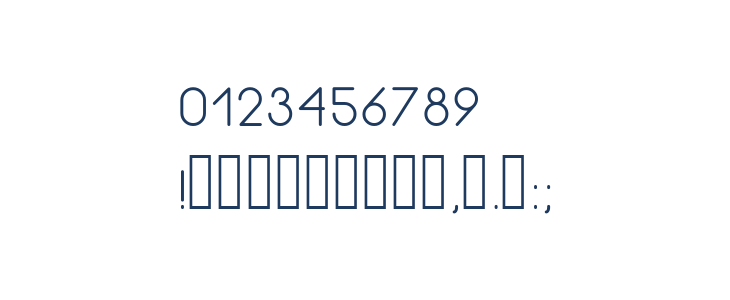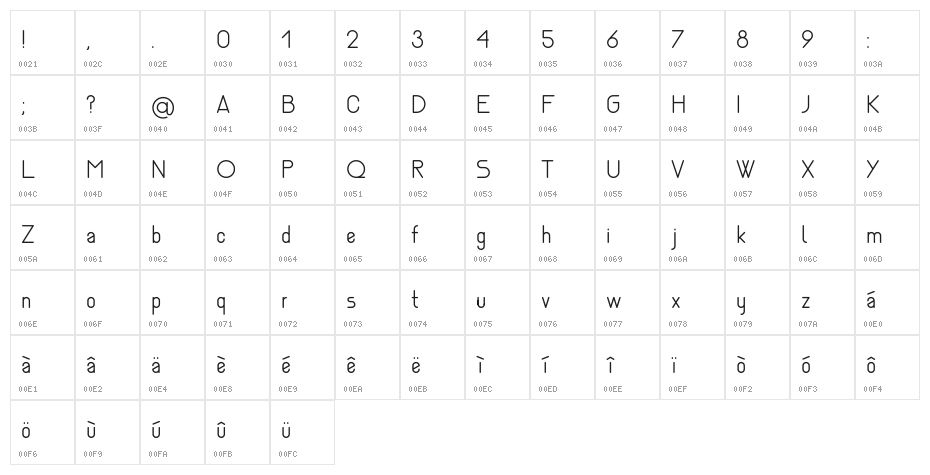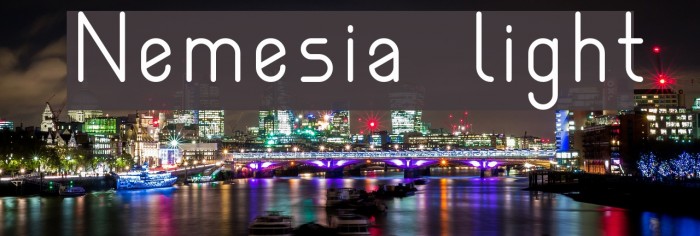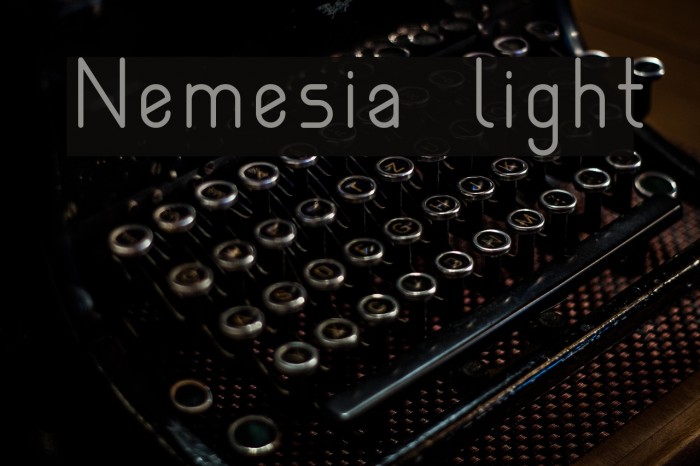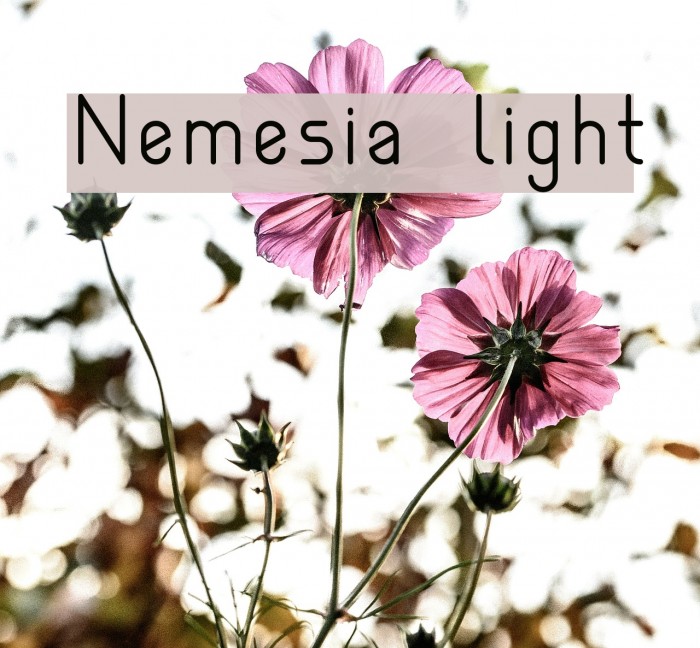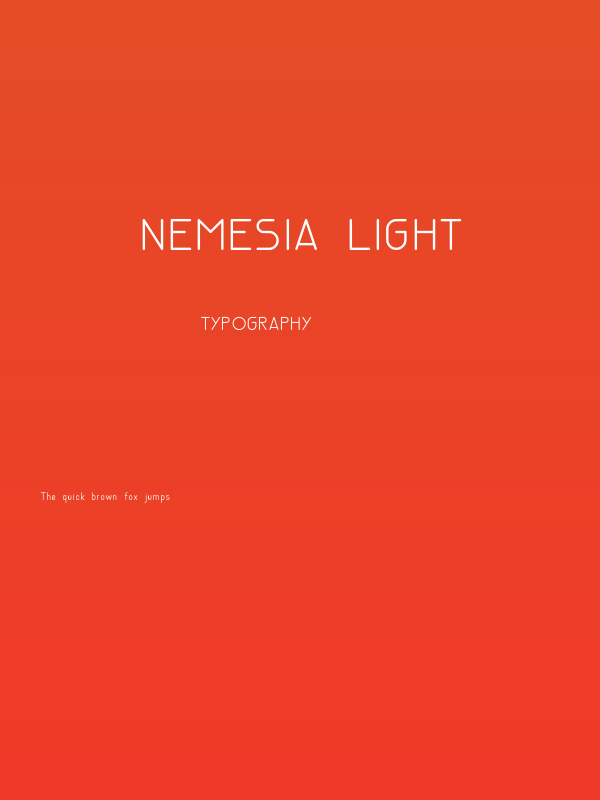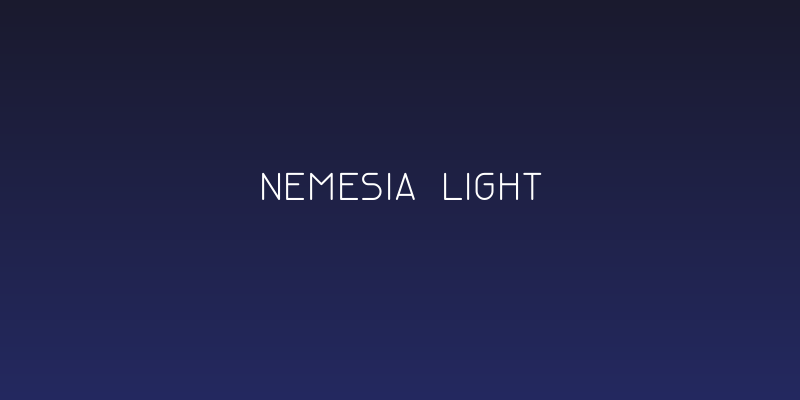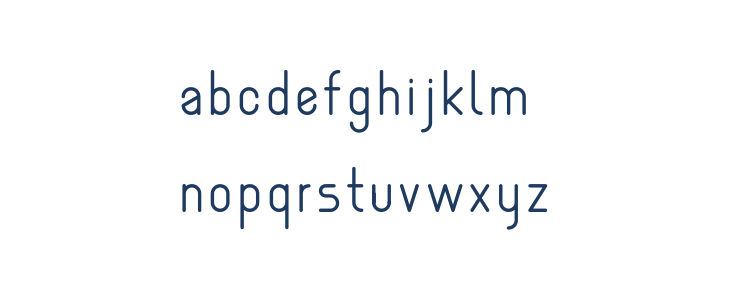
Nemesia light Font
Nemesia light Description
This font features a clean and modern design with a geometric structure. The characters are uniformly shaped with rounded edges, giving it a friendly and approachable appearance. The uppercase letters are tall and slightly condensed, while the lowercase letters maintain a consistent height, ensuring readability. The numerals are clear and distinct, matching the overall style of the alphabet. Special characters are well-integrated, maintaining the font's cohesive look. The font's simplicity and clarity make it versatile for various design applications.